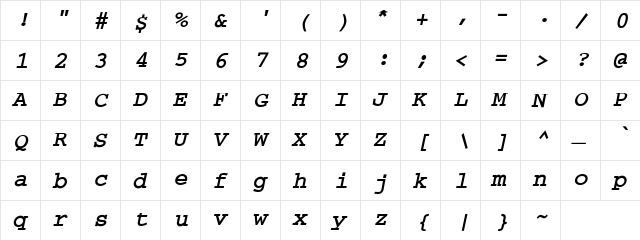
Courier-BoldO-a Regular
Courier-BoldO-a uses fixed-width spacing throughout, giving it the structured, systematic character associated with coding environments and technical documentation. Its bold stroke weight gives it real presence on the page.
Well-suited to data-driven dashboards, coding tutorials, and any design that wants to reference the world of programming.
Pro Tip: Use Courier-BoldO-a with slightly increased line-height for extended reading — fixed-width spacing can feel dense in longer passages without extra breathing room.